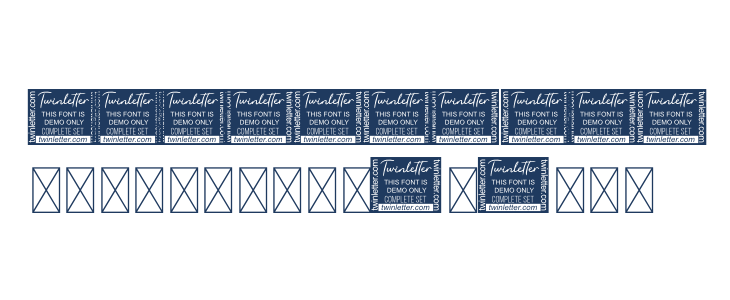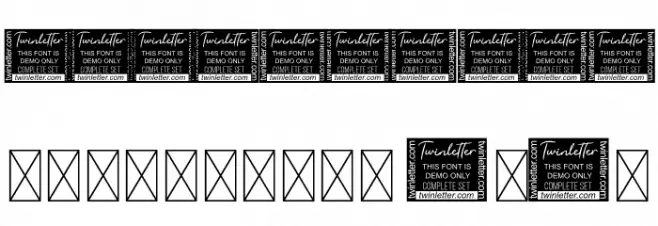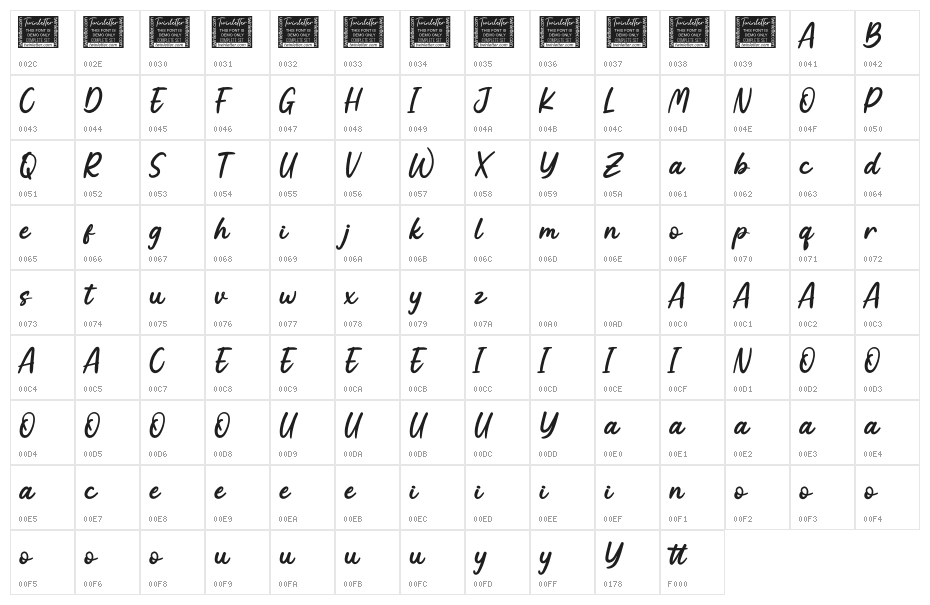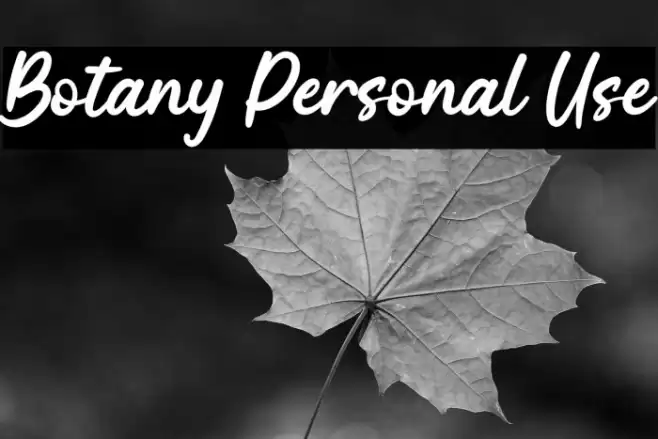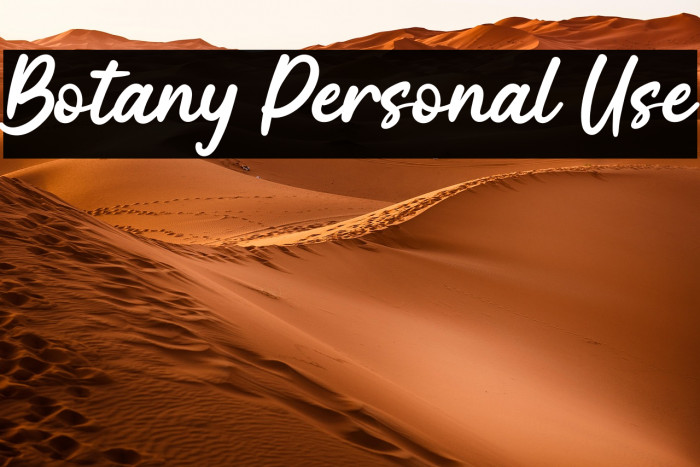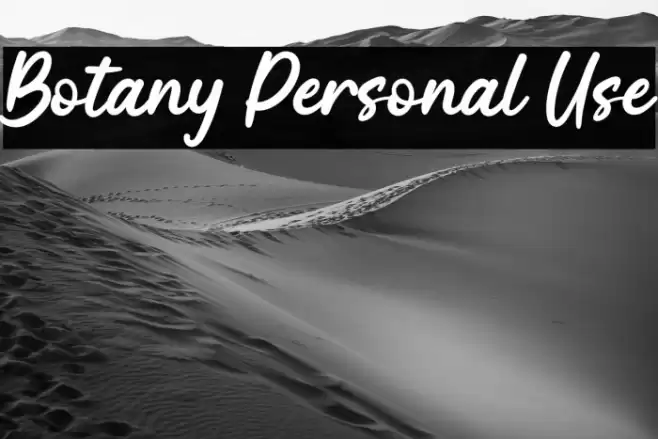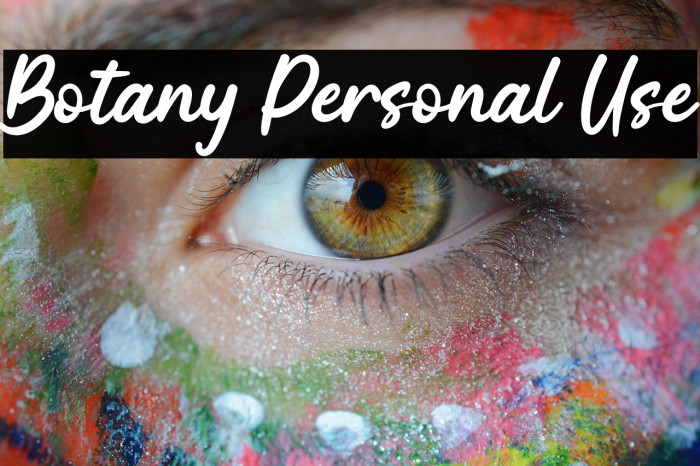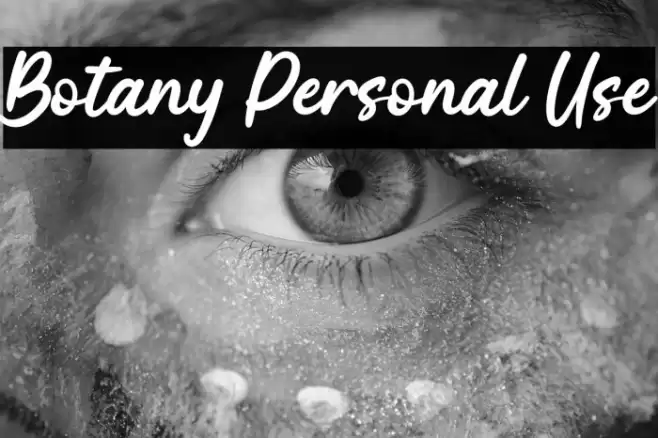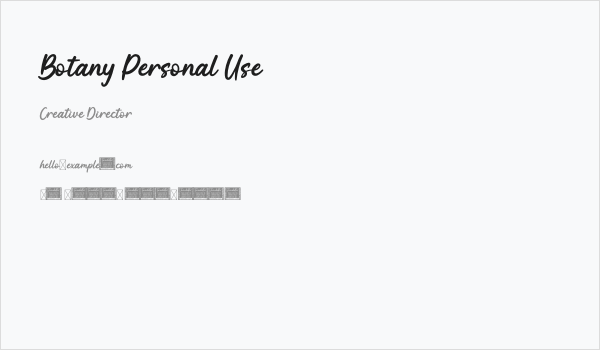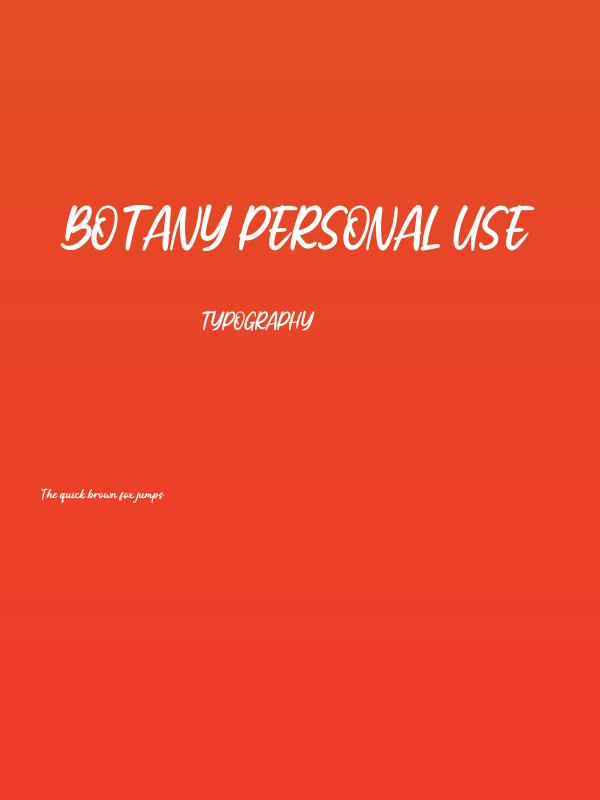
Botany Personal Use Font
Botany Personal Use Description
This font features a lively and dynamic script style, characterized by its smooth, flowing lines and slightly slanted letters. The uppercase letters are bold and prominent, while the lowercase letters maintain a consistent fluidity, adding a personal touch to the text. The strokes are moderately thick, providing a balanced contrast that enhances readability without sacrificing style. The font exudes a sense of elegance and modernity, making it suitable for a variety of creative applications.
| Proposed Projects | Ideal for wedding invitations, greeting cards, branding projects, and social media graphics. |